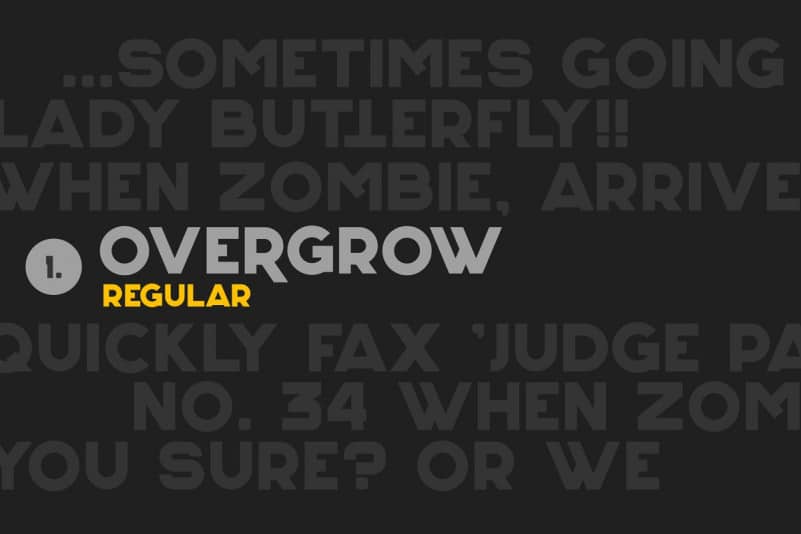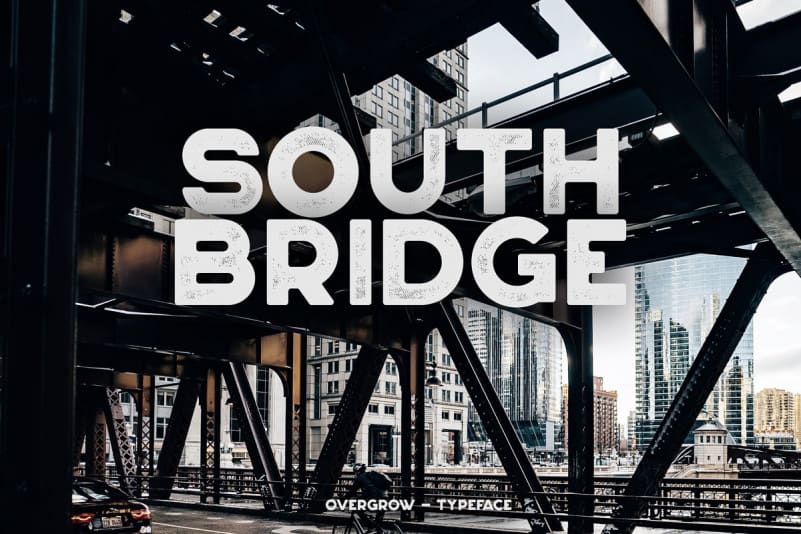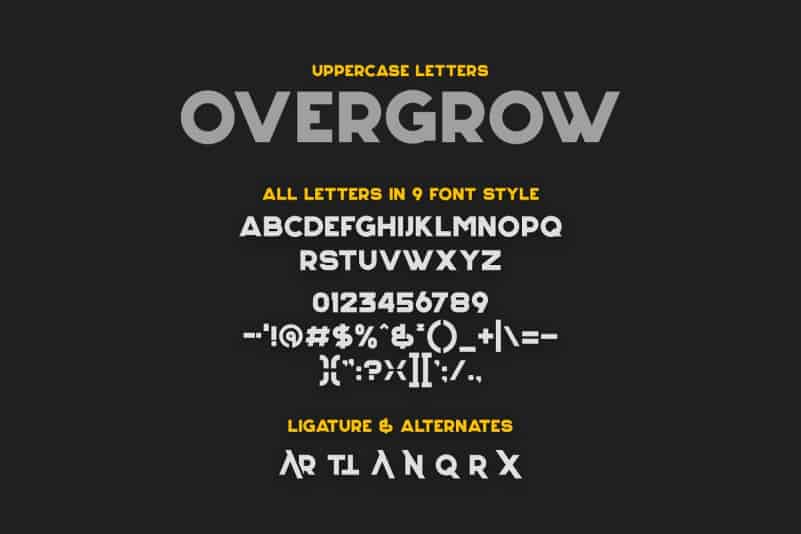
Overgrow Typeface is a cute display font, carefully created to become a true favorite. Inspired by vintage label and old school illustration. Carefully created with high consideration of the versatility and classic feel. It’s designed and shared by Fikri Rahman. Overgrow typeface is uppercase letters with 9 font styles to improve your design,it came with open type features such stylistic alternates & some of ligatures. It’s suit for logo, headings, branding, magazine, cover album, book cover, game title, apparel design, quotes, invitations, flyer, poster, greeting cards, product packaging, printed, etc.